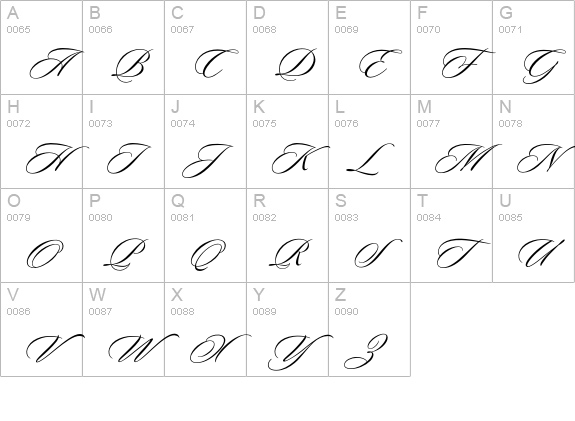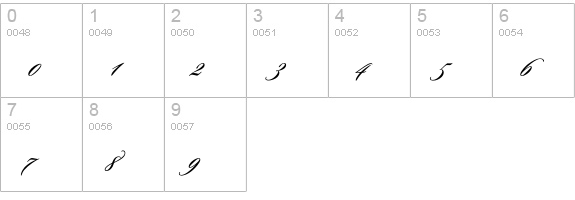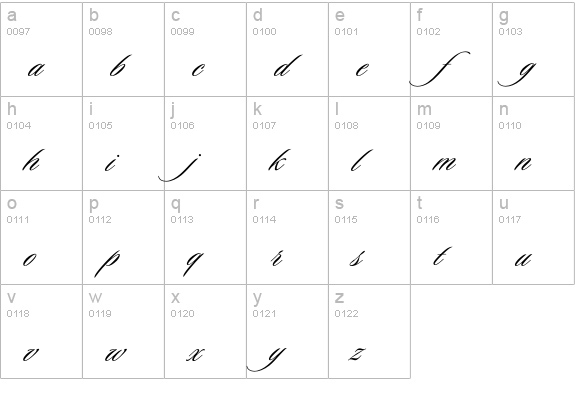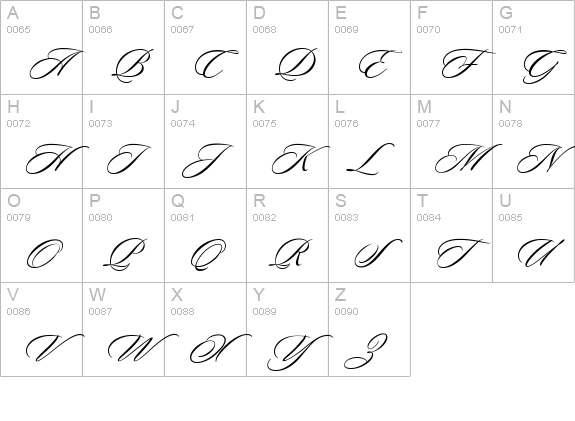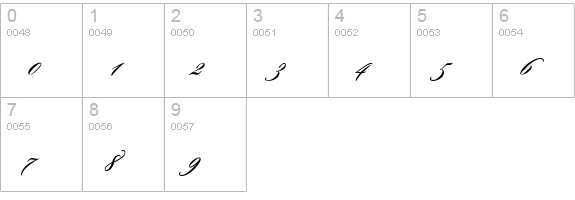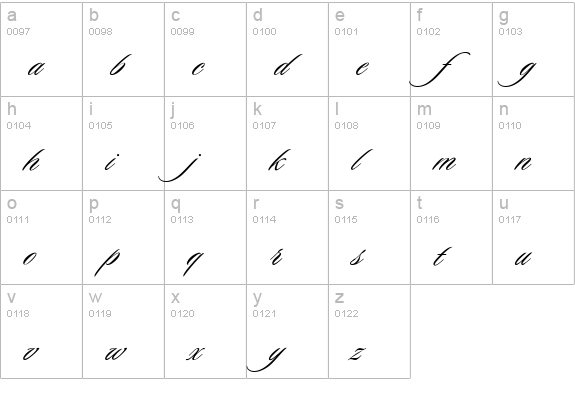
Introducing Sloop-ScriptOne, a stunning font that exudes elegance and sophistication. With its delicate curves and graceful strokes, this font is perfect for adding a touch of refinement to any project. Whether you're designing wedding invitations, creating beautiful branding materials, or crafting eye-catching advertisements, Sloop-ScriptOne will elevate your work to new heights. But what sets Sloop-ScriptOne apart is not just its exquisite design, but also its accessibility. This font is available to you completely free of charge, making it a valuable asset for both professional designers and casual enthusiasts alike. With Sloop-ScriptOne, you can bring your creative visions to life without breaking the bank. Downloading Sloop-ScriptOne is quick and easy. Simply head over to FontsMarket.com, a reputable online platform for font enthusiasts, and find this gem among their extensive collection. Once downloaded, you'll have unlimited access to this remarkable font, allowing you to explore its versatility and unleash your creativity. Don't miss out on the opportunity to enhance your designs with Sloop-ScriptOne. Experience the beauty of this font and discover the endless possibilities it offers. Download Sloop-ScriptOne today, and let your imagination take flight.